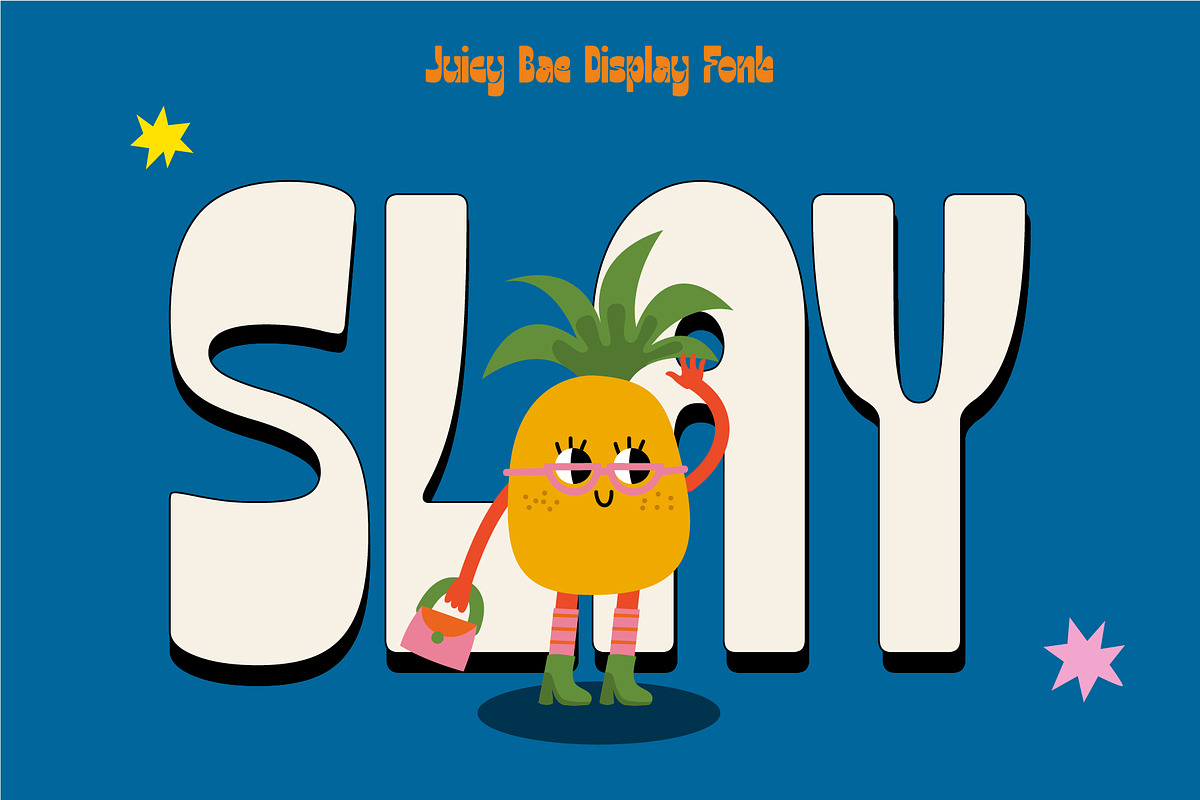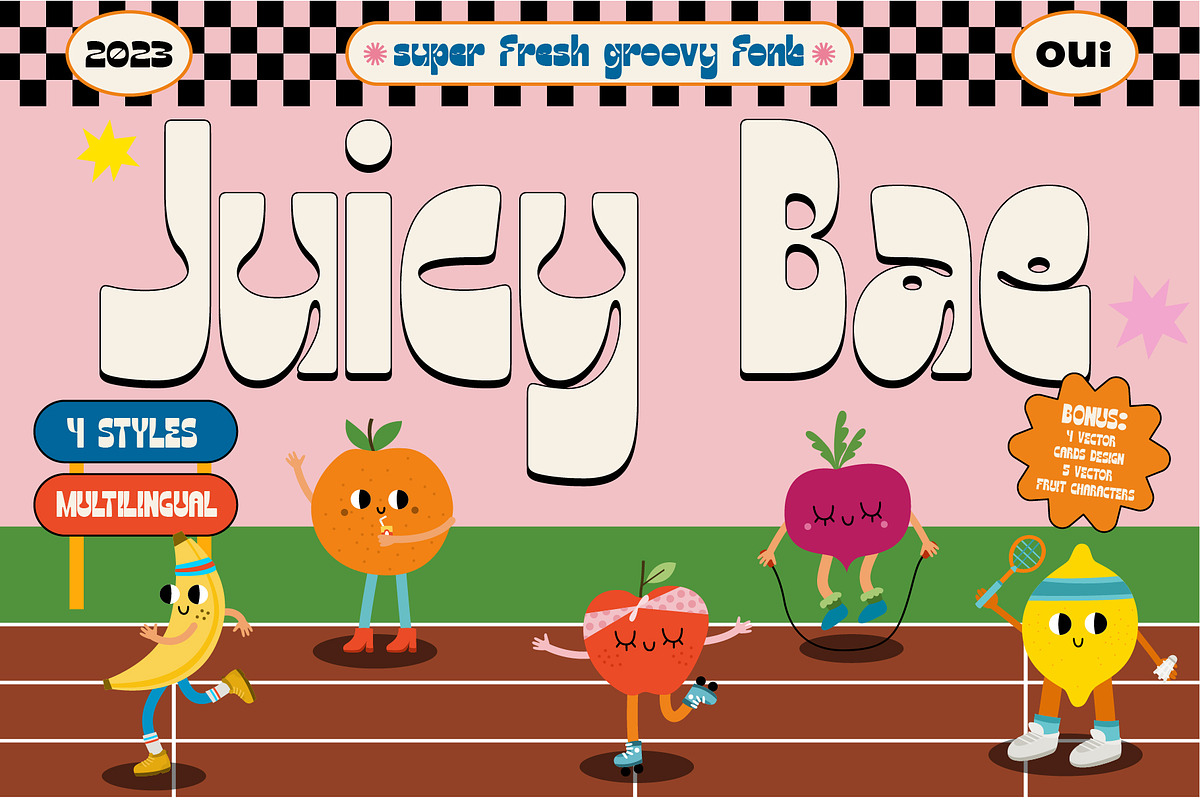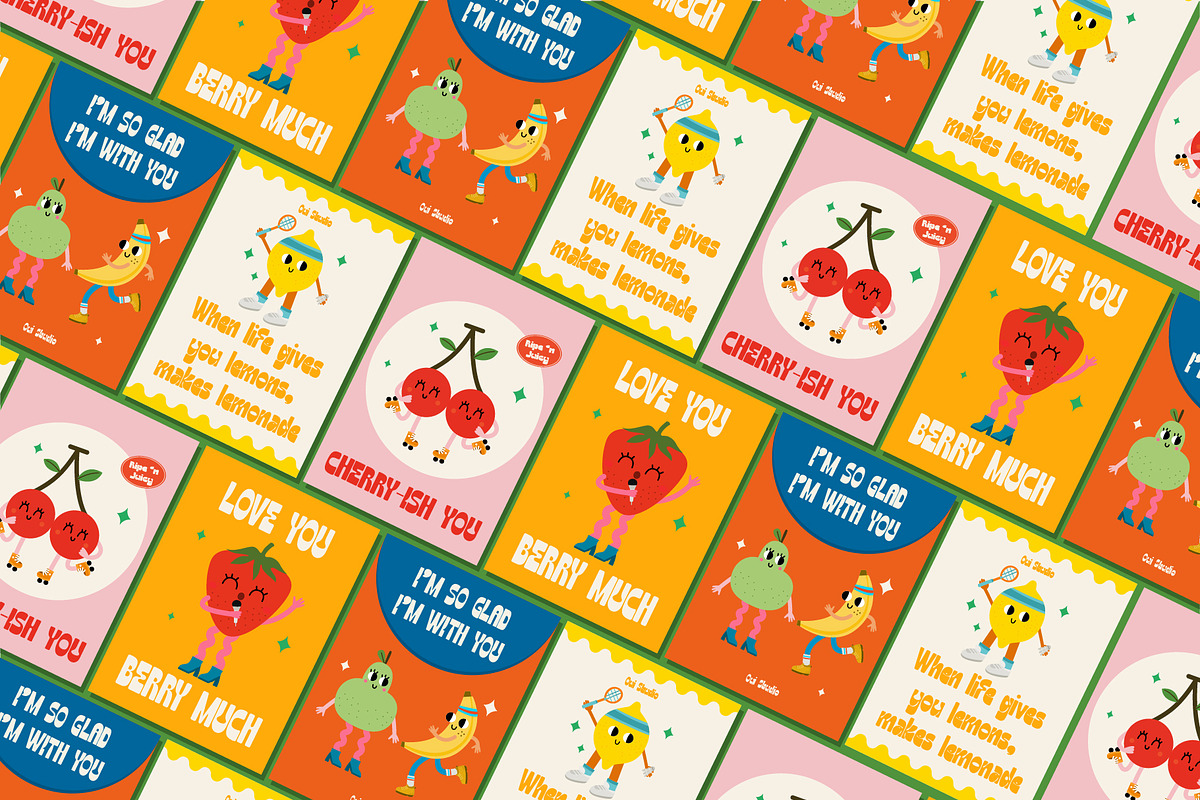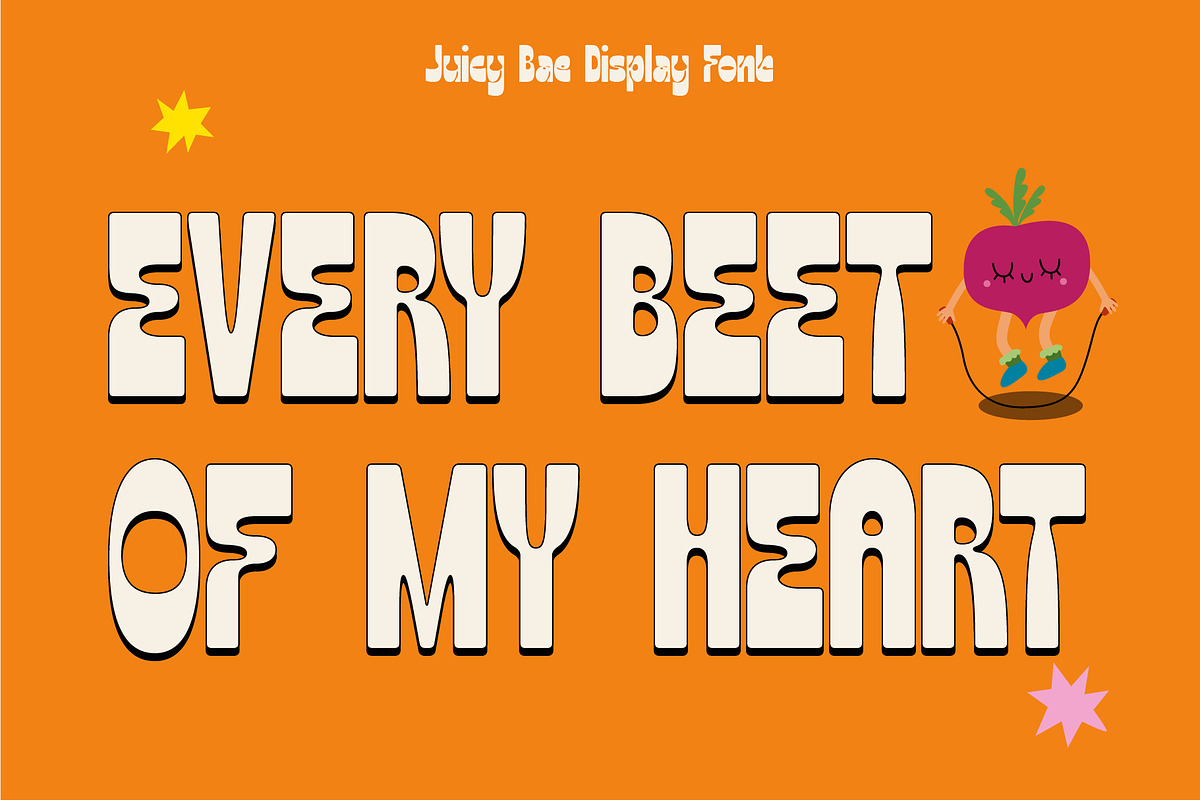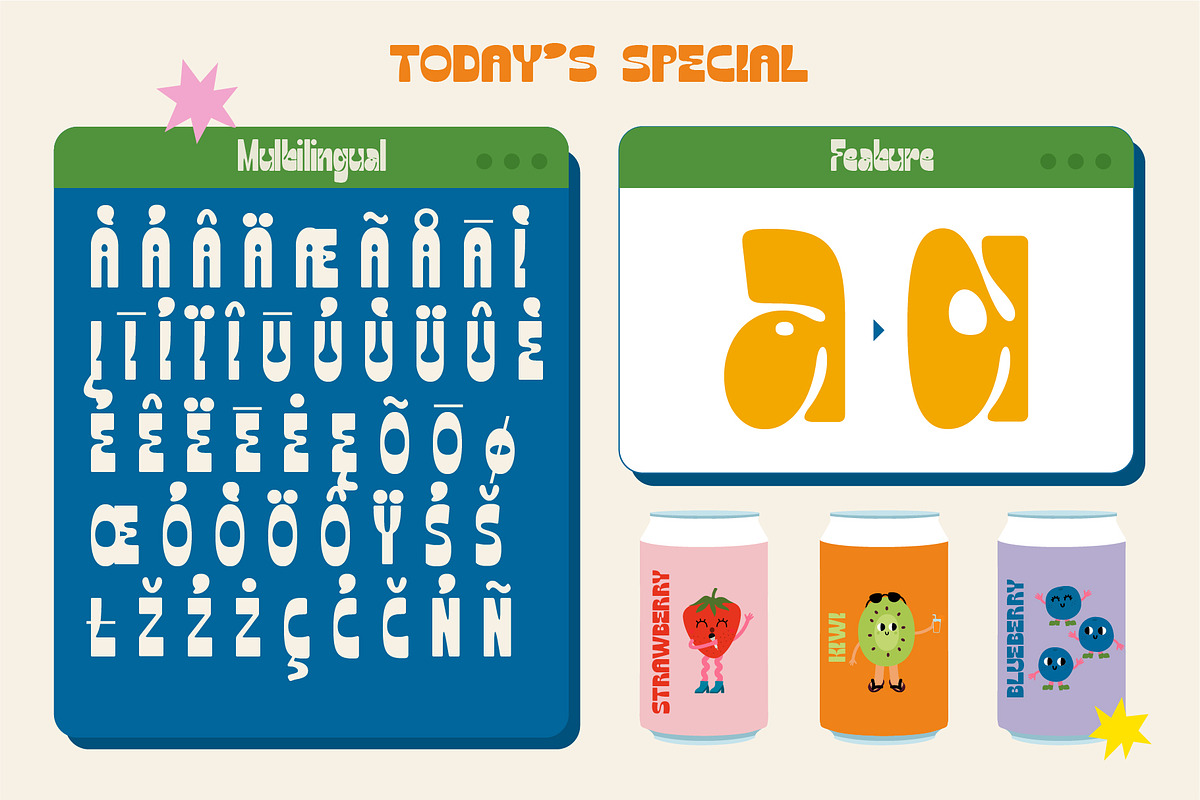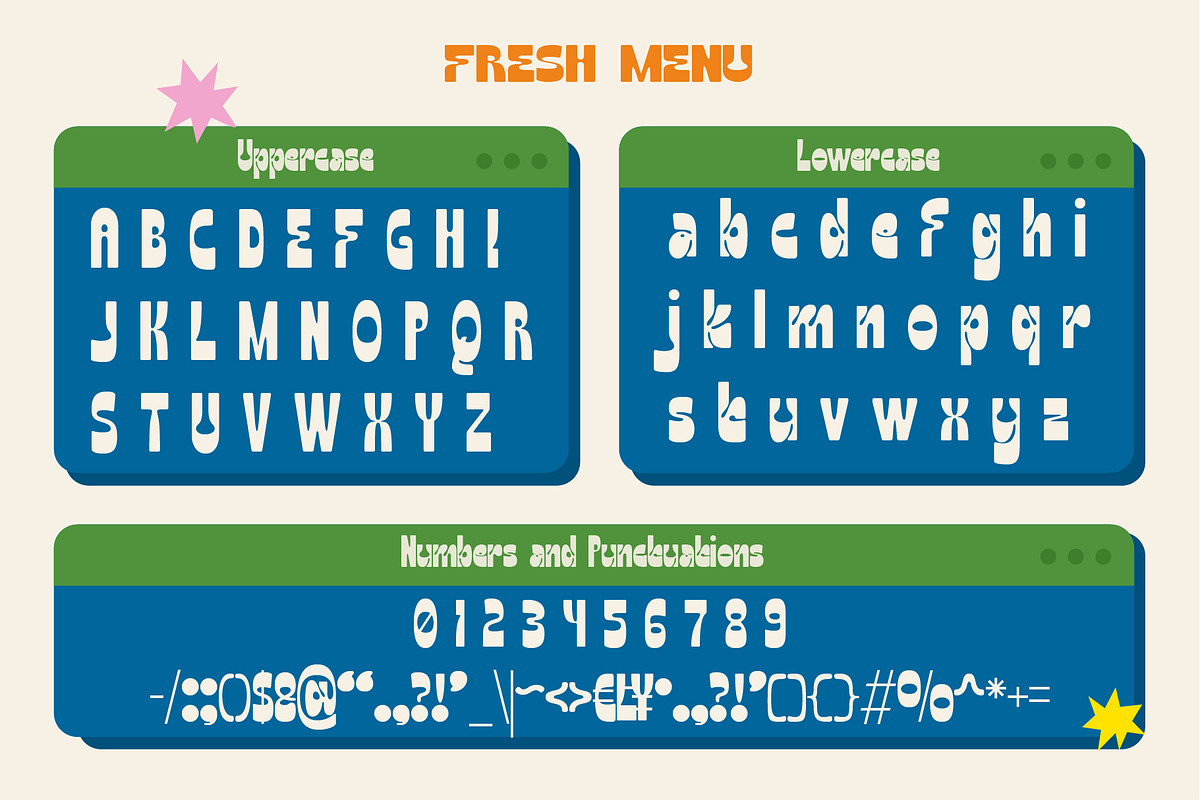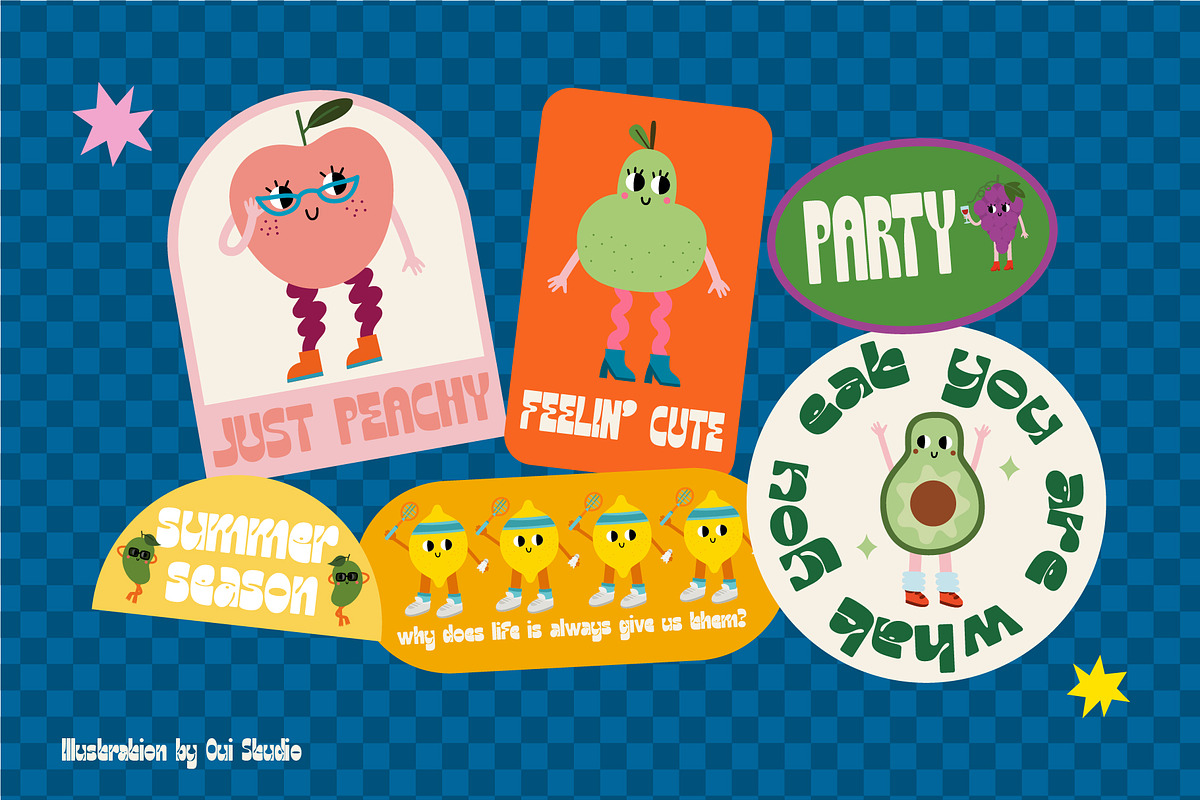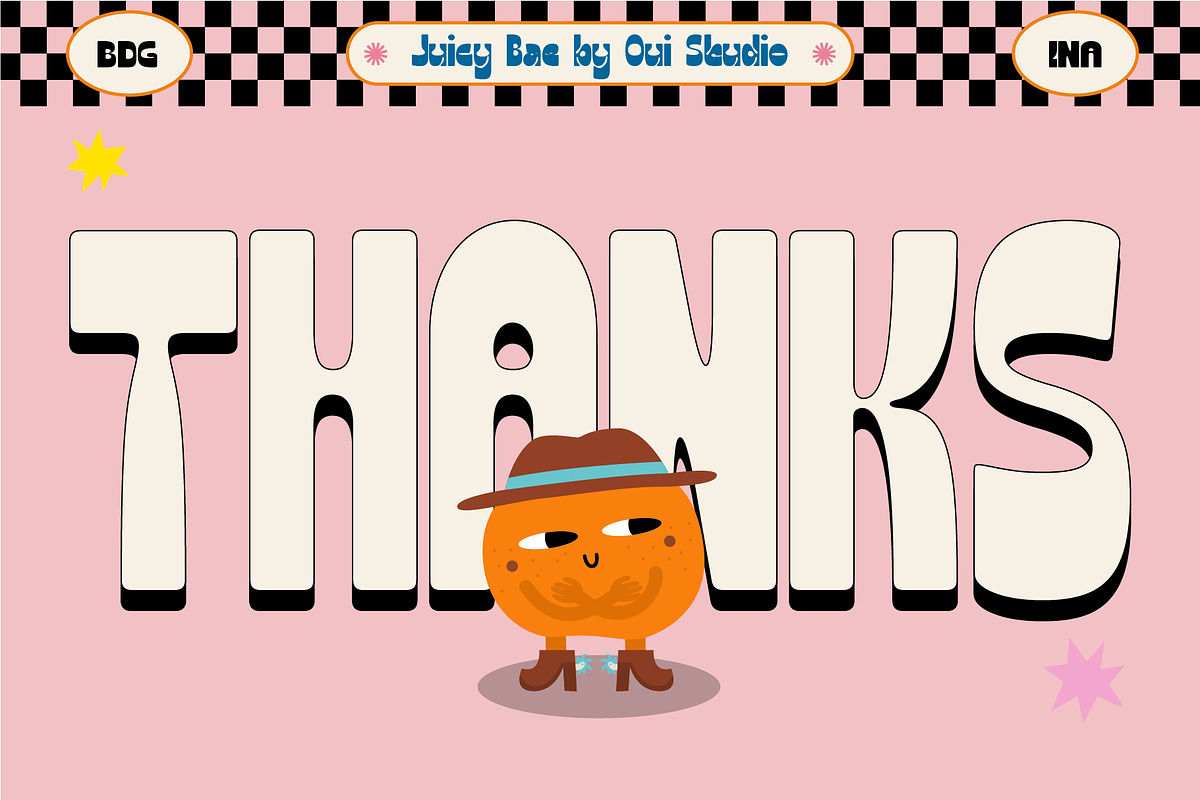
Juicy Bae Groovy Font + Bonus
Hello friends! The 'Juice Bae' font is coming, a super fresh groovy font with 4 styles (condensed, regular, expanded, and extra expanded).
Juice Bae is very inspired by the dynamic and natural shape of fruit and the groovy era. Full of fresh color!
Juicy Bae has wavy corners and dynamic thickness. It's perfect for branding, logo, invitation, greeting card, packaging, graphic tee, poster, digital or print stuff, artwork, product, etc. Need something extra? Juicy Bar gives you a bonus! Yay! 4 card designs and 5 fruit characters. All in vector format in .ai .eps .svg